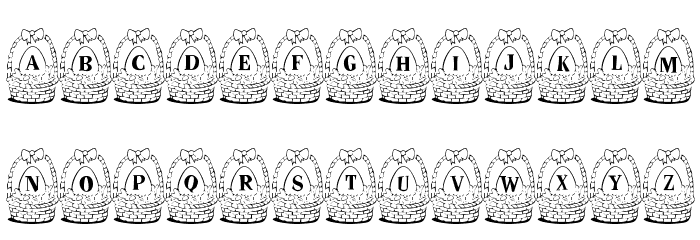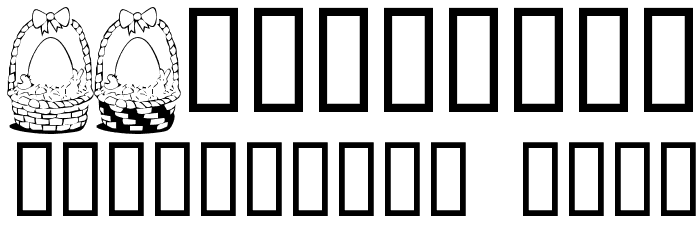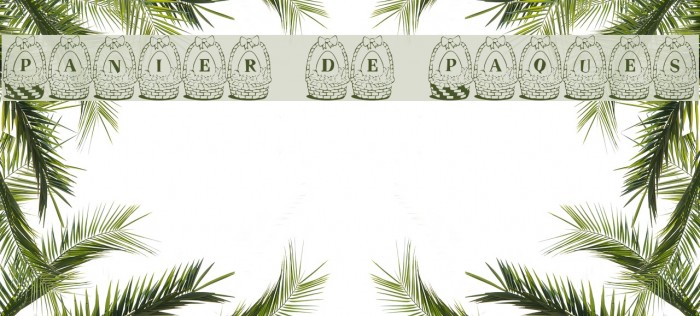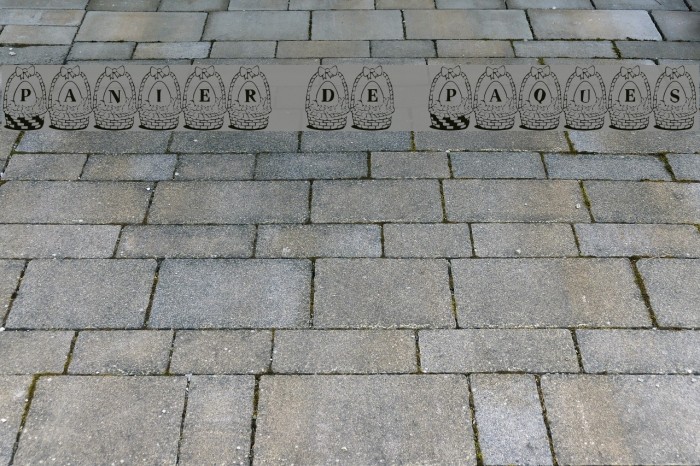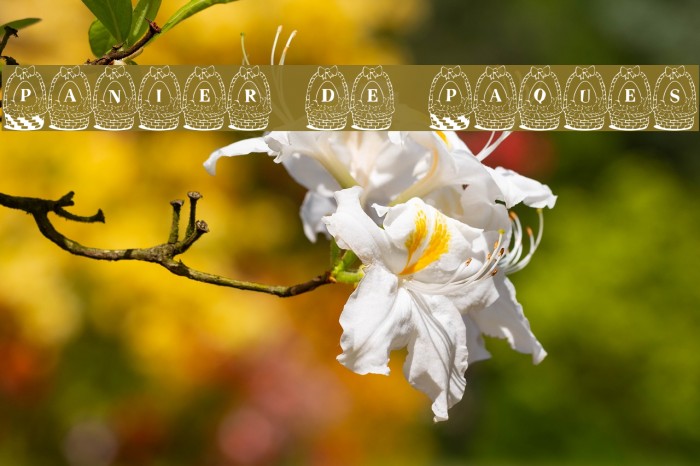
Panier de Paques Font
This decorative font features letters enclosed within intricately designed Easter baskets, each adorned with a bow on top. The baskets are detailed with a woven pattern, giving a textured appearance. The letters themselves are simple and bold, providing a clear contrast against the ornate basket design. The font is playful and thematic, ideal for festive occasions. The unique presentation of each character within a basket makes it stand out, adding a whimsical touch to any project. This font does not include lowercase letters or numbers, focusing solely on uppercase characters and special symbols, which are also encased in the basket motif.
A decorative font with letters inside detailed Easter baskets, perfect for festive designs.
- Proposed Projects: Ideal for Easter-themed invitations, greeting cards, children's party decorations, and festive banners.